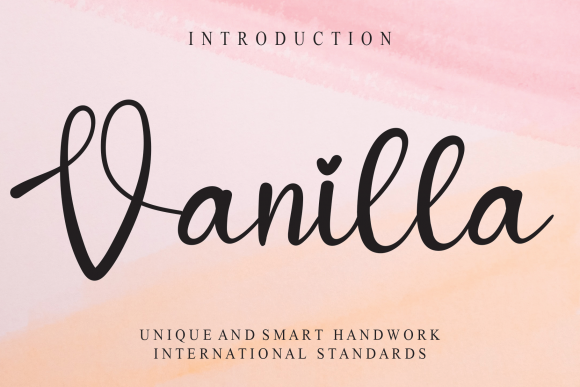
Vanilla Font
About Vanilla Font
Vanilla is a whimsical script font with a relaxed theme, featuring a lovely style. This font would be ideal for writing web designs, business cards, or pretty much anything else that requires a unique touch.